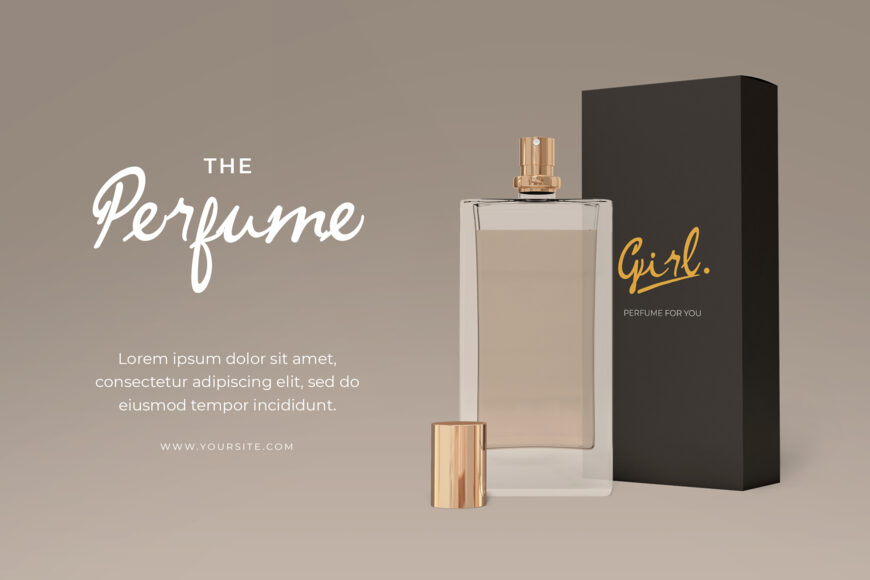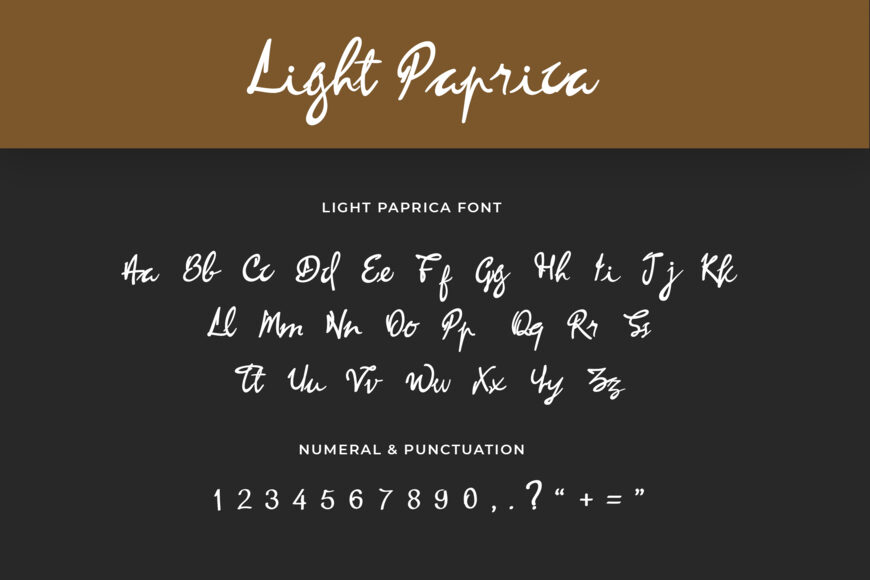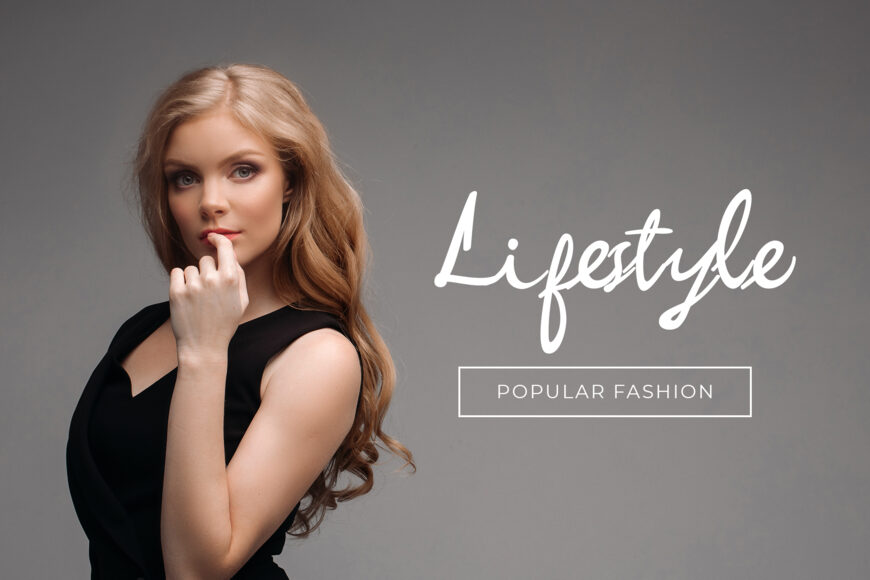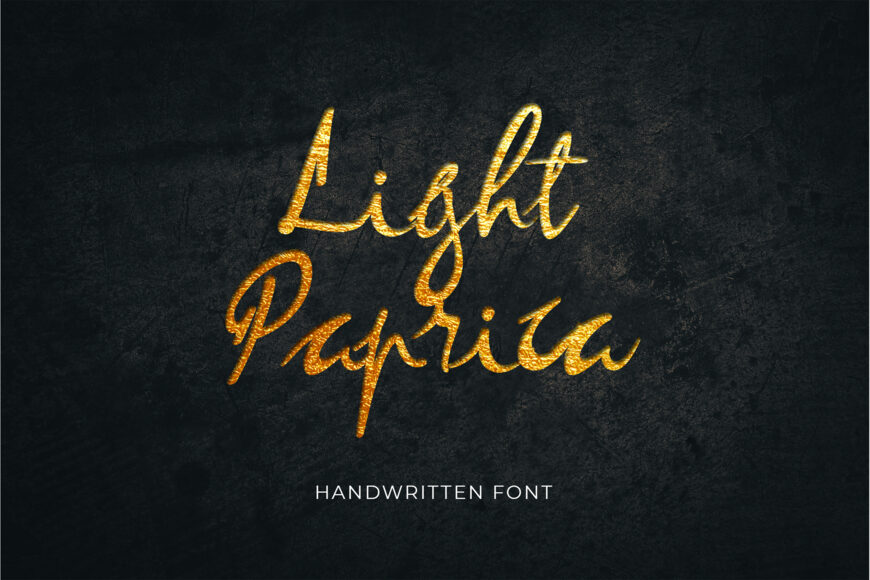
Light Paprica Font
Light Paprica is a relaxed and casual handwritten font. Its natural and unique style makes it incredibly fitting to a large pool of designs. The only limit is your imagination!